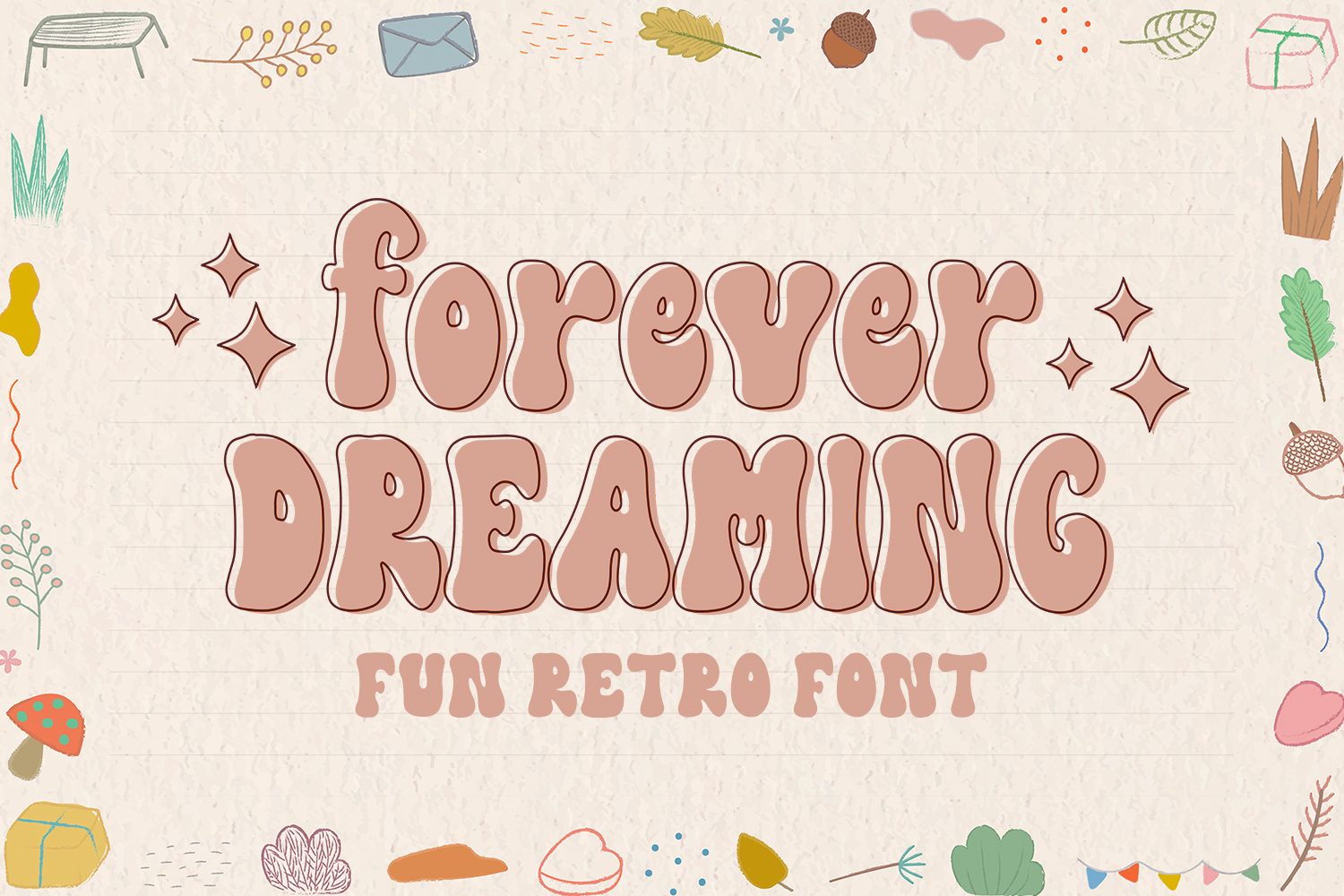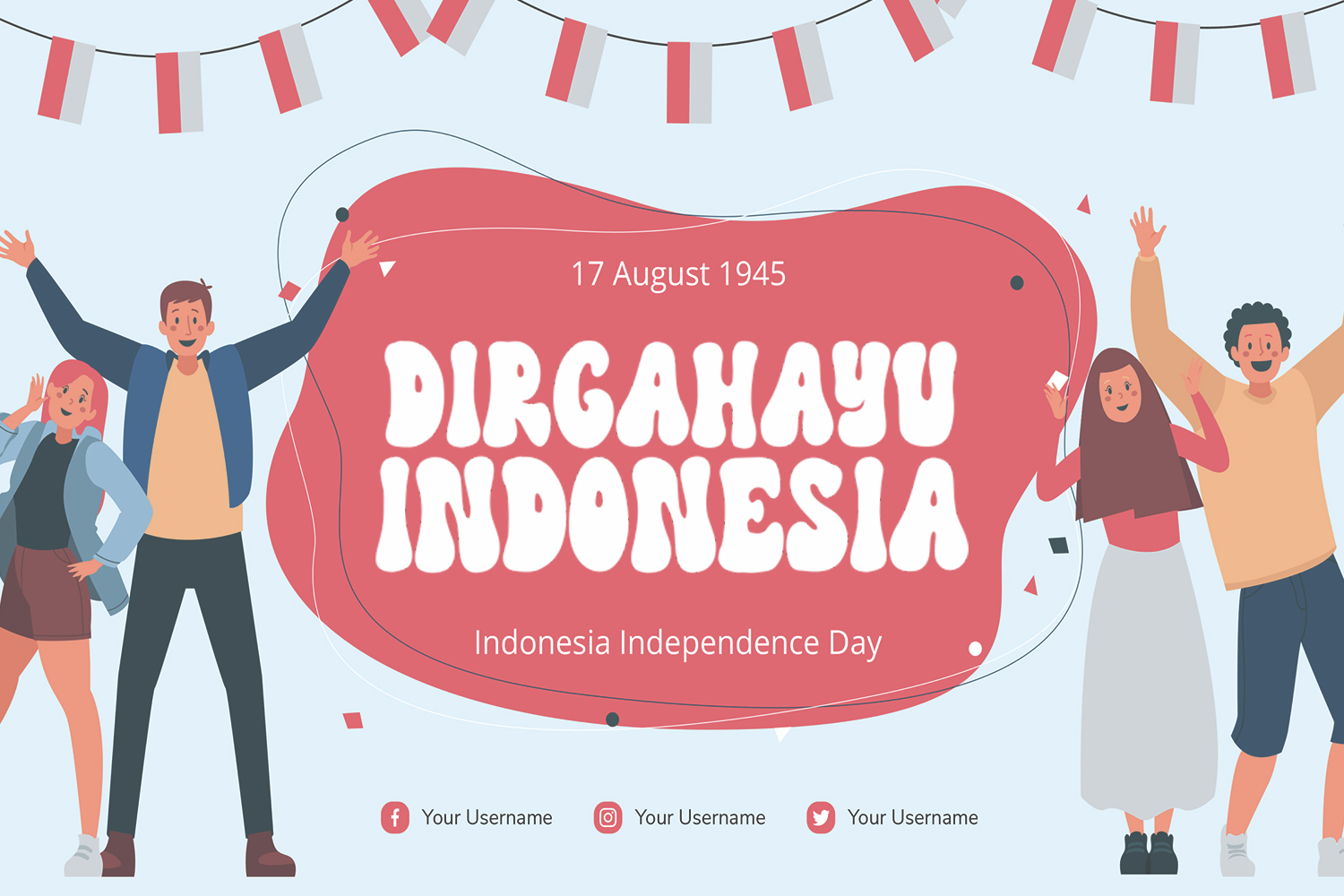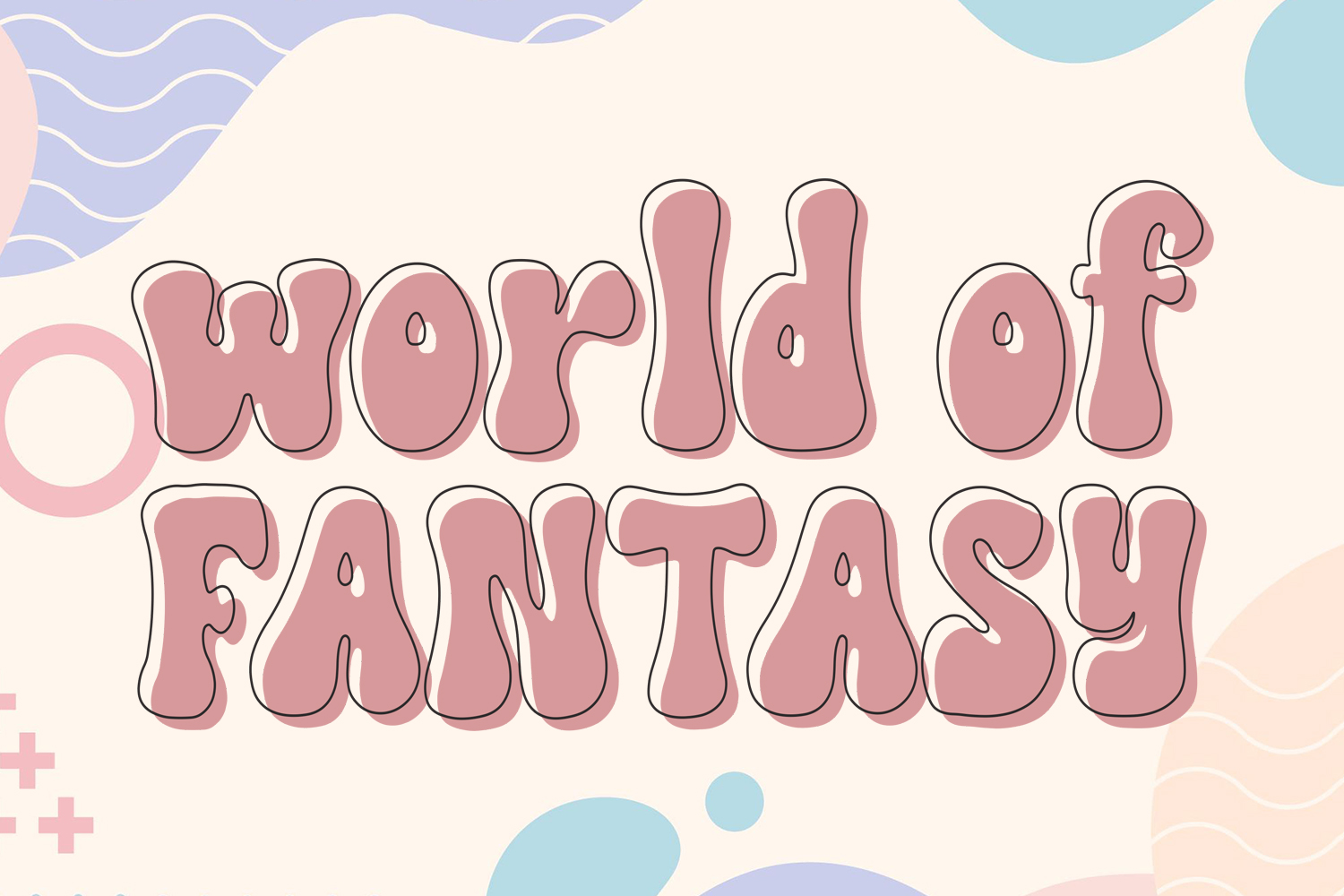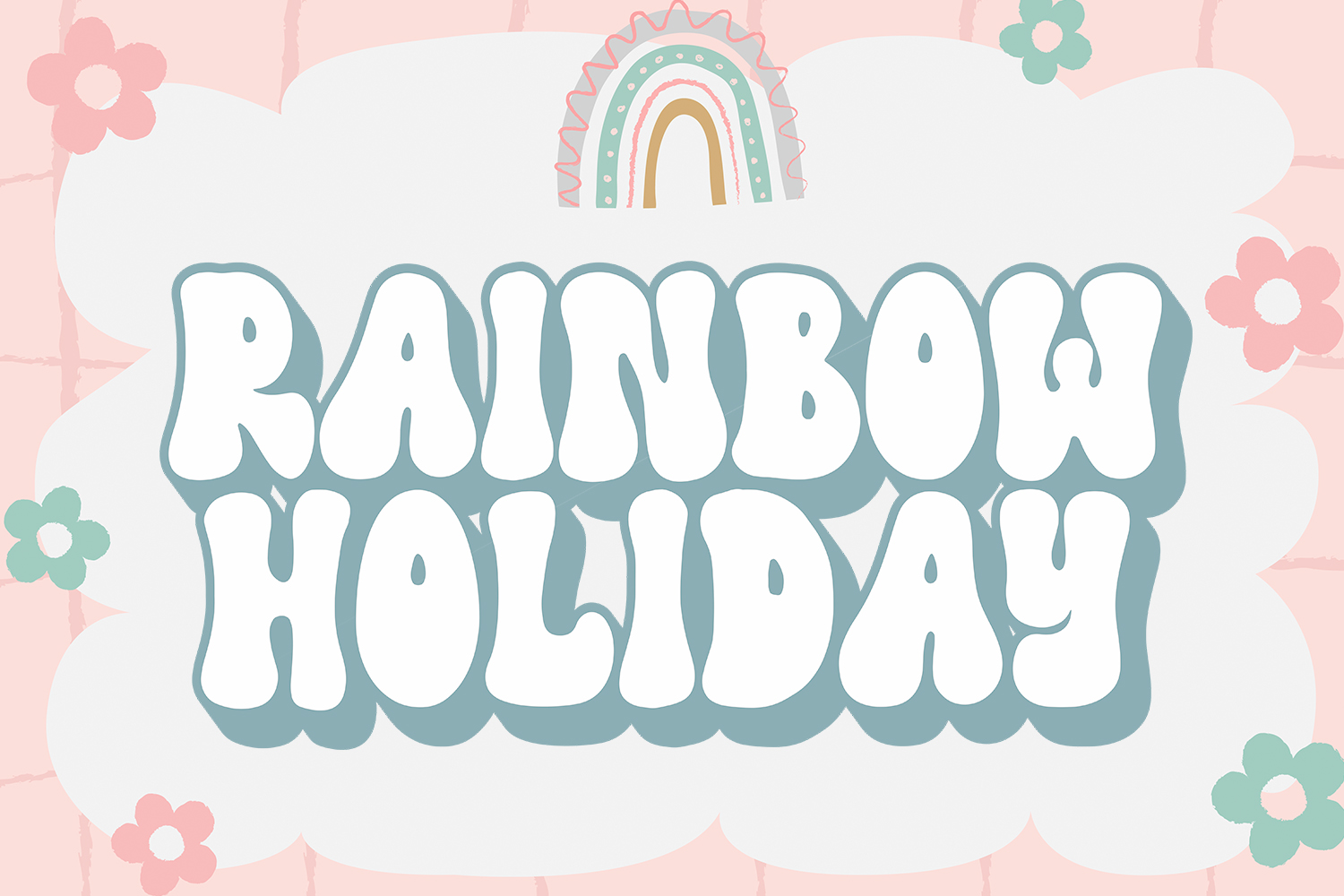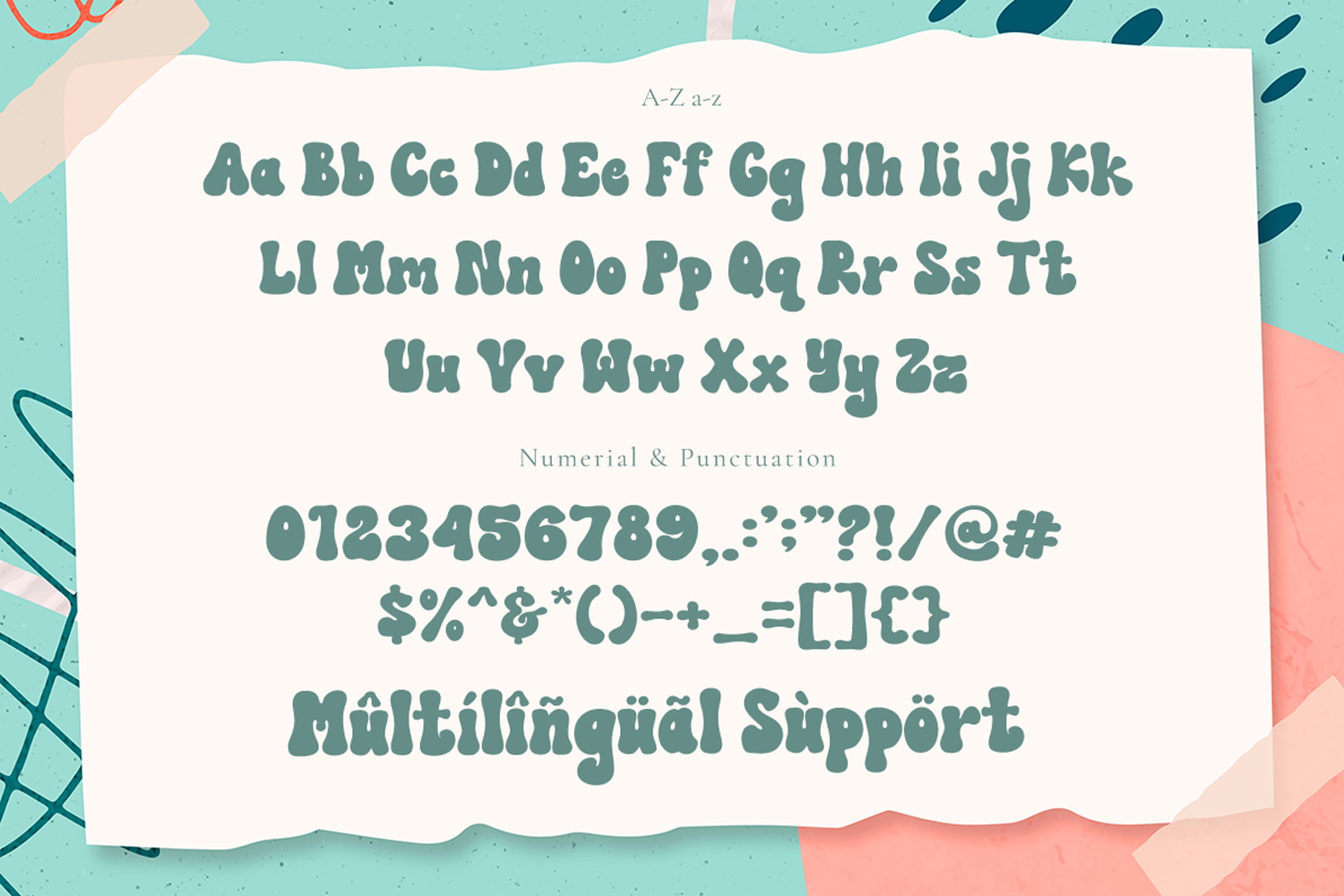
Forever Dreaming – Cute Retro Font
Forever Dreaming is a cute retro font, it’s a groovy style font which perfect for branding, posters, t-shirts, stickers, wall art, and any design you can think of.
Multilingual Support